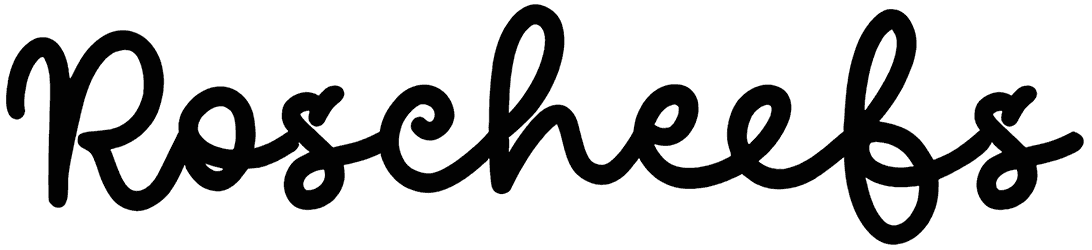
Roscheefs Font
If creating a sense of dynamic, significance, vitality, and uniqueness is what you really want in the field of designing graphic content, then you must adopt the combination of lowercase and uppercase letters of a script font like Roscheefs to fulfill your goal.
Aside from the lack of numbers, this cursive font comes with rounded edges and angular letters, so it can boost the level of your artwork’s visibility. It can be matched with illustrations, gift cards, branding, or billboards.